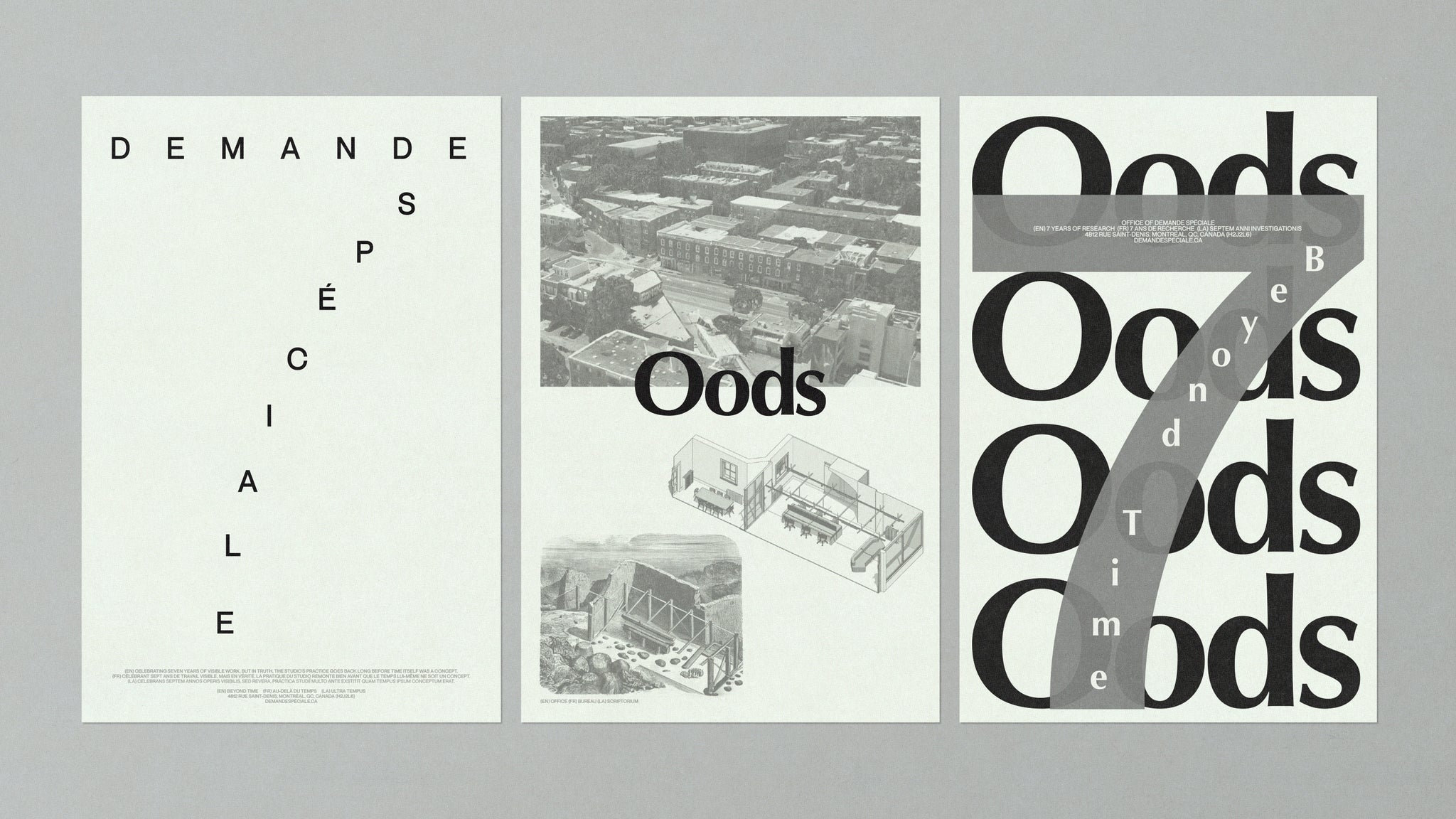
Having started as a side-project in 2017, whilst its founders were at other agencies, Montreal-based design studio Demande Spéciale has quickly become (probably) your favourite studio. (It’s for sure one of ours). Now, it’s time to celebrate their 7th birthday! 🎊🎁🎈
The practice of Office of Demande Spéciale is one that’s genuinely distinctive – something that has become ever-increasingly hard to say about a lot of successful studios. Balancing a meticulous attention to detail with a sense of unpretentious, unburdened play, their subsequent practice is studious and similarly joyous. “It’s always nice to see that it resonates beyond the projects,” Maude Turgeon, Director and Designer of Demande Spéciale, tells us. “Our sense of play guides us in different directions,” she continues, “but we always stay focused on the core of what we’re trying to express,” finding and striking a balance between curiosity, reflection and structure.
As a result, what this typographically-led playground sembles is detailed yet relaxed work led by an appreciation of craft and the spontaneity that it offers. “We want our designs to be clever and well thought out, but also to have a light, effortless quality,” Maude continues, “what excites us most is the discovery, we love that no two projects, even if they seem similar, will ever lead us down the same path.”
For a creative studio with the reputation it bears, the setup and scale of the studio may surprise you, opting for a smaller group of full-time staff and a network of trusted collaborators. “We always liked the smaller formula; it allows us to stay agile and flexible,” Maude suggests, prioritising a close connection and proximity to their clients. “It gives us a better understanding of the projects,” she explains, giving her and the team a greater chance of “reading between the lines,” a sensibility that Demande Spéciale embodies within their mindset when starting and developing projects.
“Our approach is all about exploration and building solid insightful systems,” Maude details, seeing each project as a problem to solve, “there can be more than one answer to these puzzles, but by trying out new directions and allowing our process to be flexible.” She adds, “We can find the solution that aligns best with the project’s essence,” as well as the inspiration for their solution, which, for Office of Demande Spéciale, can come from anywhere. “We try to keep our eyes and minds open,” Maude tells us, whilst at the same time collecting visual references from the likes of Are.na or random phone pictures.
“Often, inspiration surfaces from something seemingly unrelated to the subject or project we’re working on,” she continues, always pursuing fresh and unexpected ideas. “We do tend to follow a similar methodology and general steps,” she adds – discussing Demande Spéciale’s creative philosophy and practical approach – but always keep the process open, allowing it to adapt project-to-project. “It’s like a free-flowing funnel,” Maude suggests, “where we refine the work through the process but leave room for new possibilities and opportunities,” leaving space for happy accidents. “I actually love accidents,” Maude adds, “they can unlock new paths and reveal unexpected perspectives, and that’s when the magic happens.”
Whatever the project, there are two foundational, immovable cornerstones to Demande Spéciale’s practice. 1. The thoughtfulness of its designers and 2. Typography. Playing such a central role in the studio’s creative approach, typography serves multiple purposes, as Maude suggests, going far beyond just being a font. “It’s about what that typeface communicates and adds to the overall visual language,” she expands, “sometimes we opt for a seemingly simple, standard typeface, but it;s in the details,” from the letter’s subtle forms to the interactions between them. “That is what starts to bring the brand to life,” Maude details, equally unafraid to go bigger, brighter and bolder when necessary.
“Other times, typography is not just a communicator but as a graphic element in itself, something loud and expressive,” she continues, at times becoming an integral textural form. “I love how flexible type can be,” Maude notes, “typography is really a building block for our work.”
Looking ahead, it seems like we shouldn’t take our eyes off Demande Spéciale, with their 7th anniversary energising them more than ever. “I really love what we’ve built so far, and I see the studio as a place where we can keep evolving and growing, both as designers and as people,” Maude tells us, wanting to push themselves to do better and go further. “Our playground is defined but also vast,” she continues, letting them apply their way of thinking and practice to more than just the discipline of design – whilst meeting and collaborating with more and more people, especially those outside of design.
“Expect more unexpected projects from us,” Maude concludes, “whether it’s expanding our services, exploring new markets, or diving into new kinds of creative work, we’re inspired by what lies ahead.”